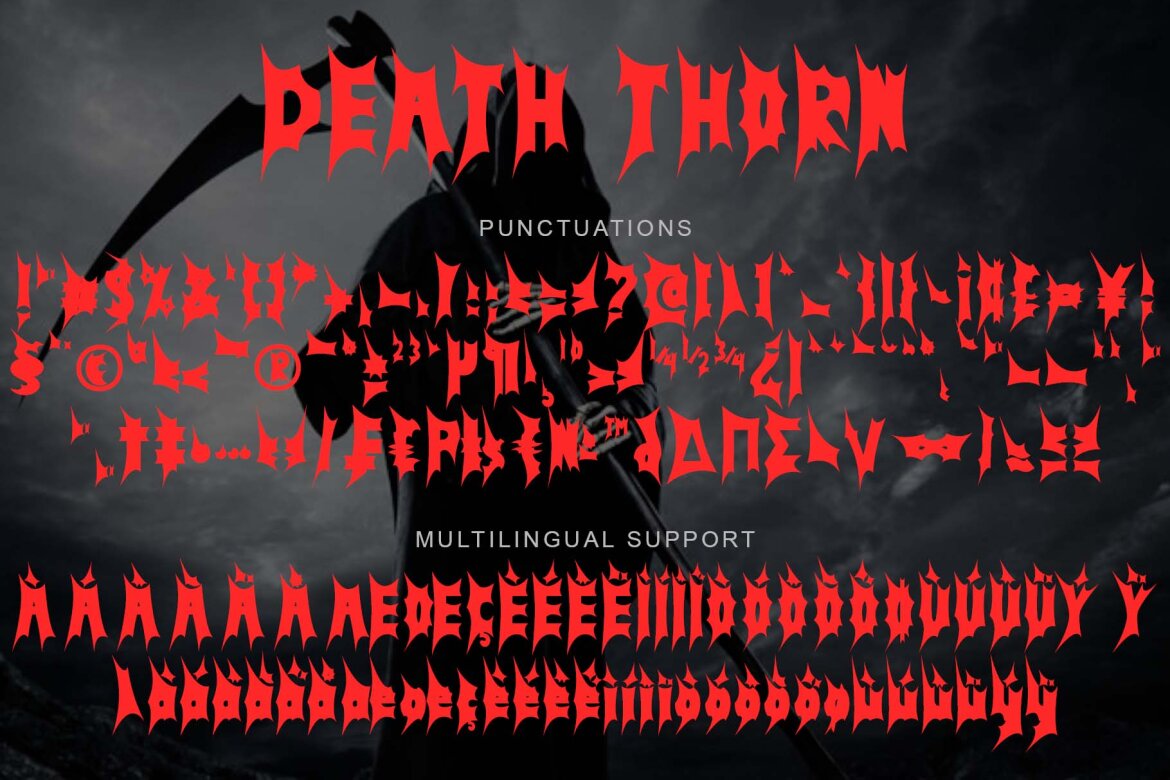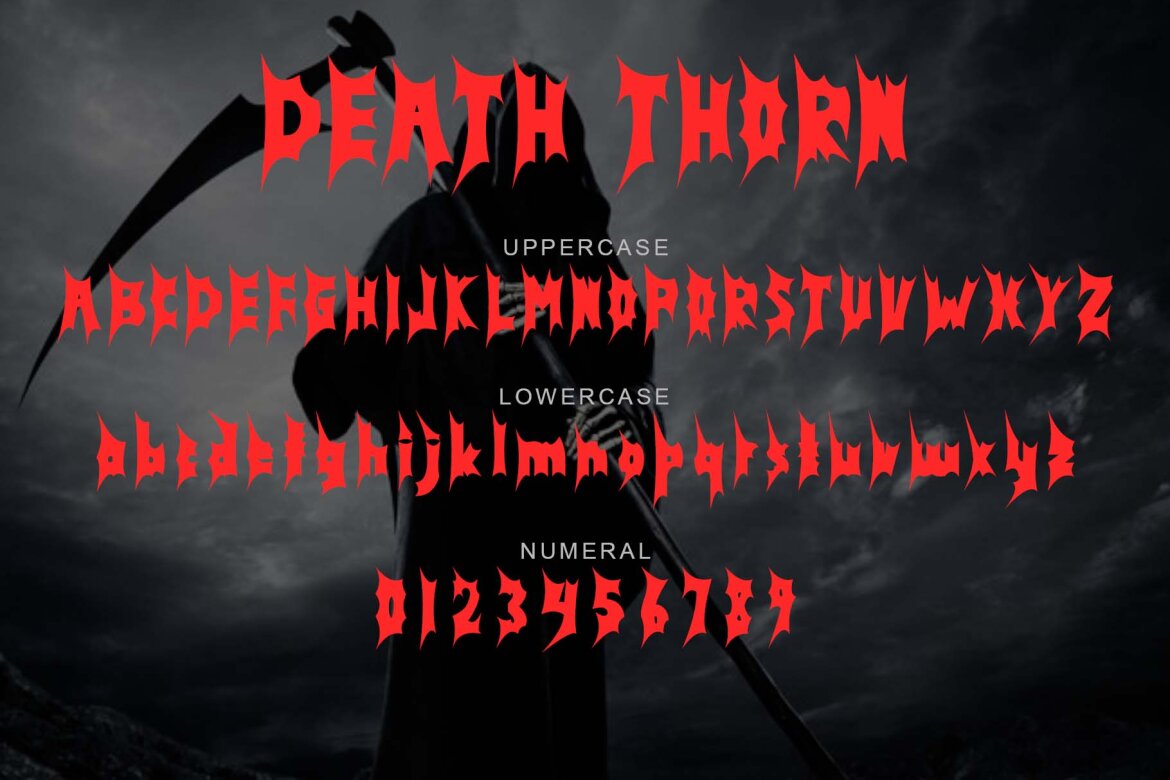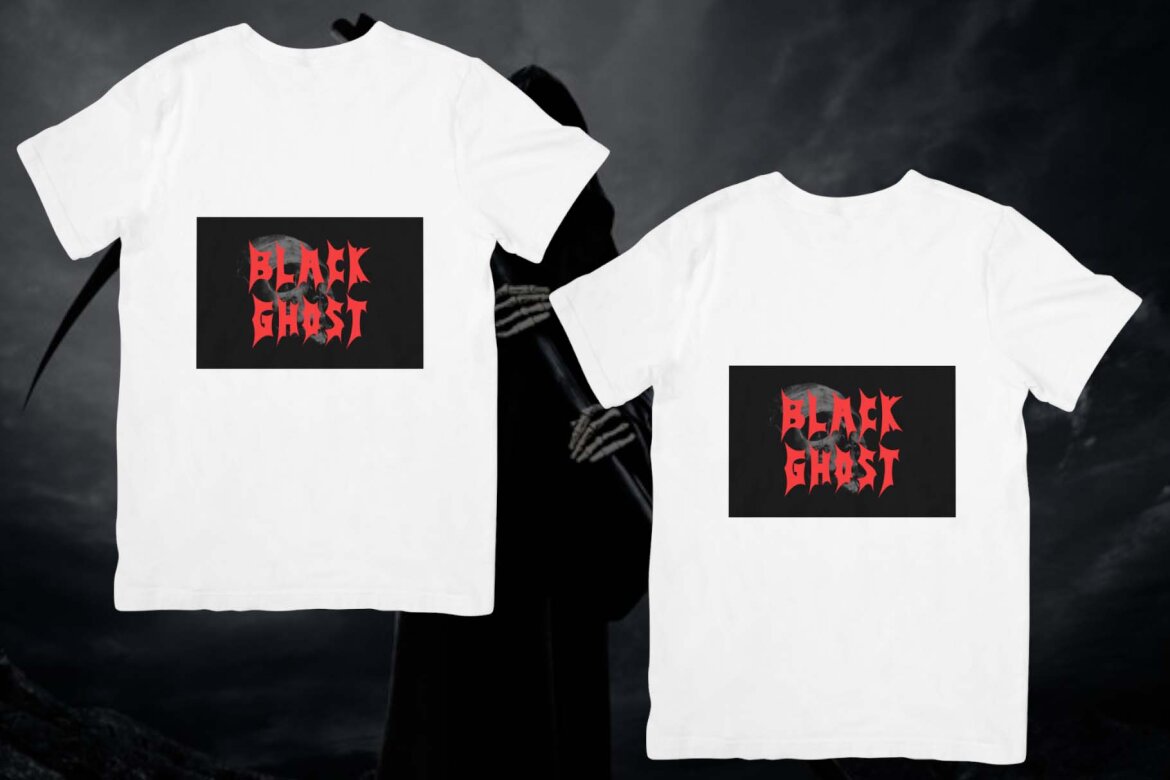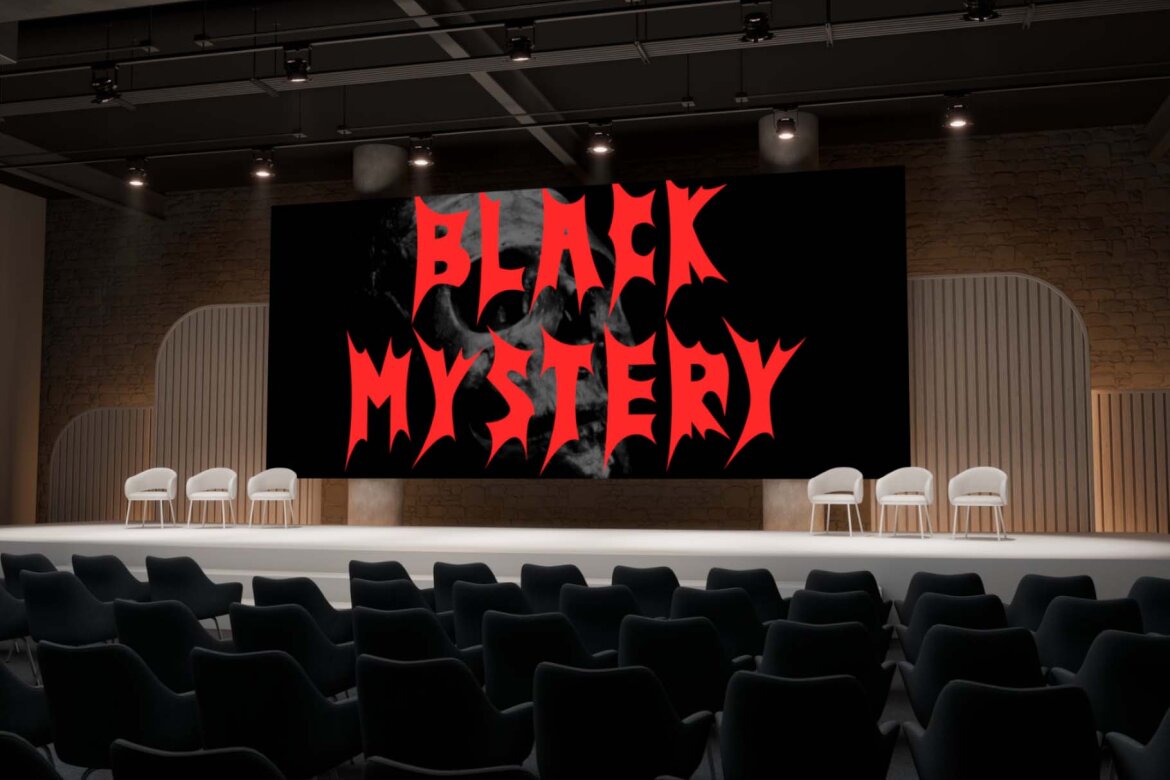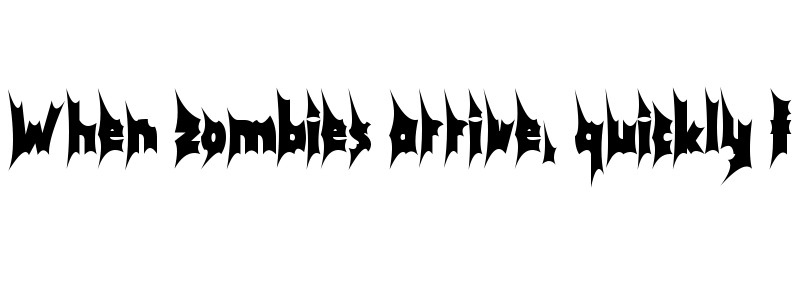
Death Thorn FREE Font
Death Thorn
"Death Thorn" is a spooky and unique display font. This font has thorns on each letter and is equipped with uppercase, lowercase, numerals, punctuations and multilingual support. Very suitable for posters, banners, branding, stickers, logos, prints, halloween, summer, spring, easter and others.
• lowercase
• numeral
• punctuations
• uppercase